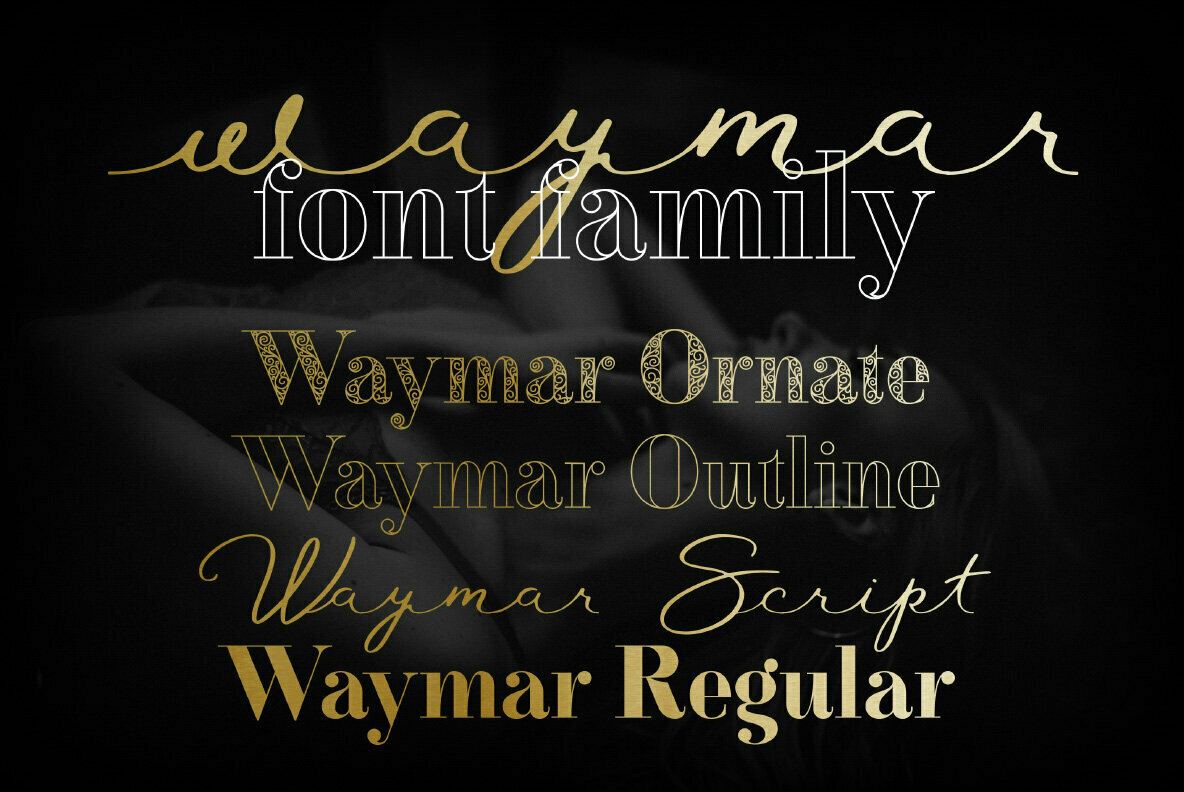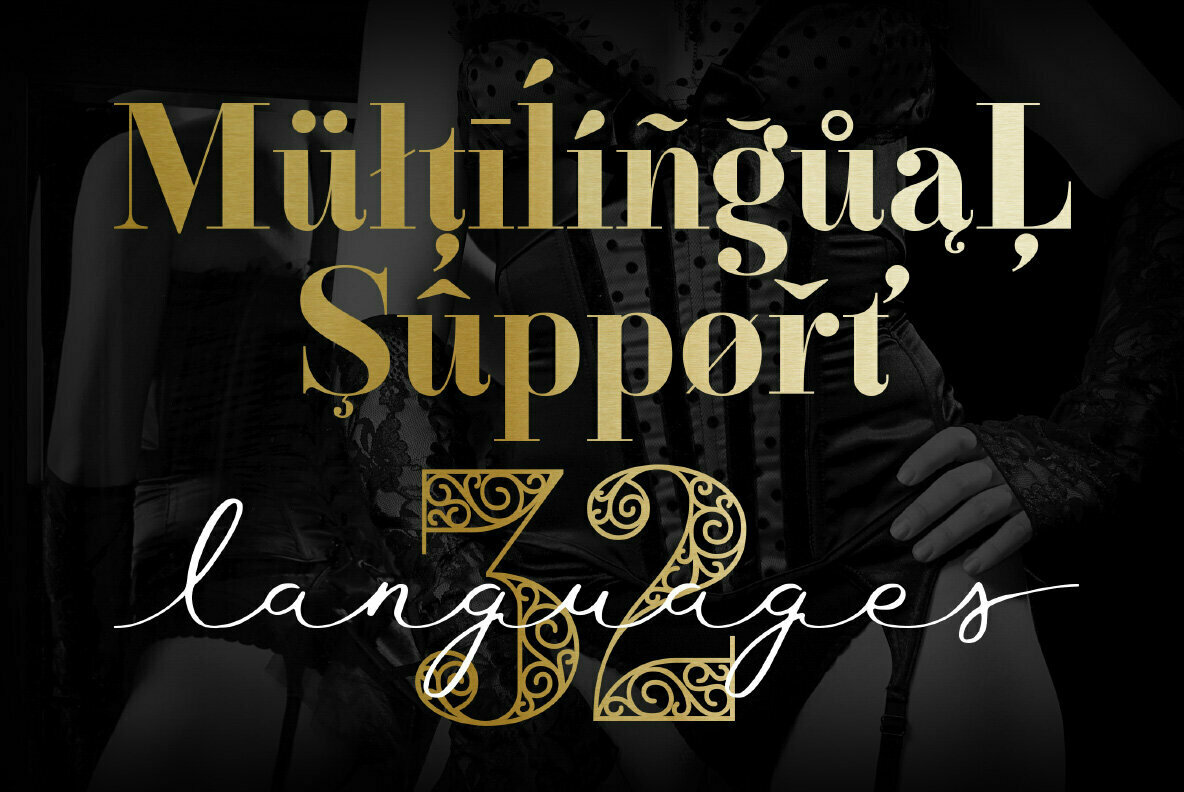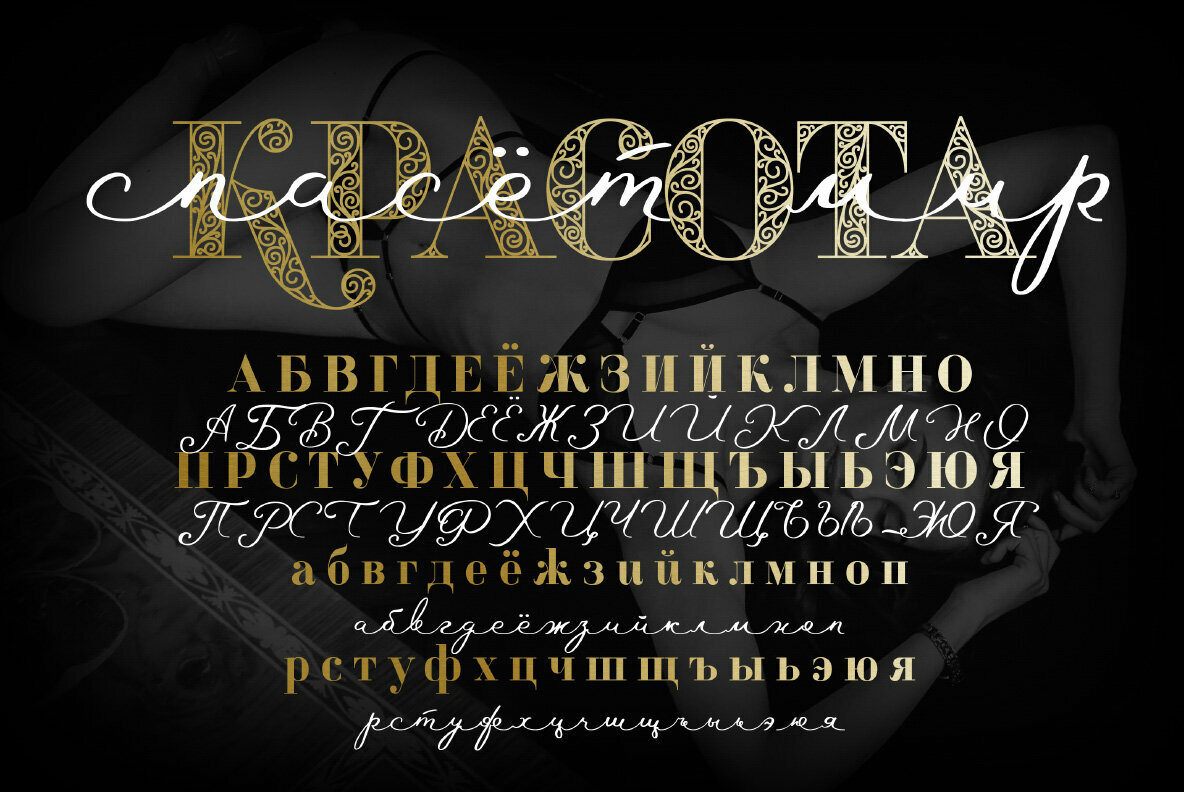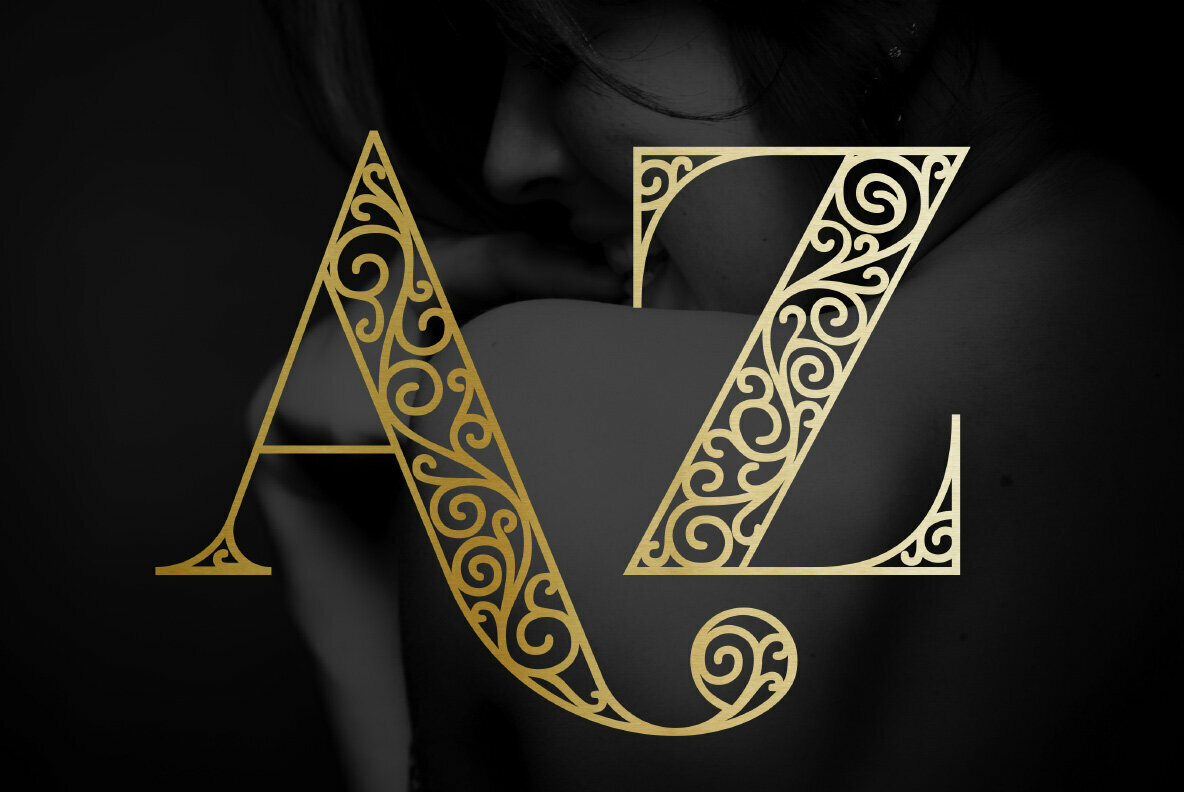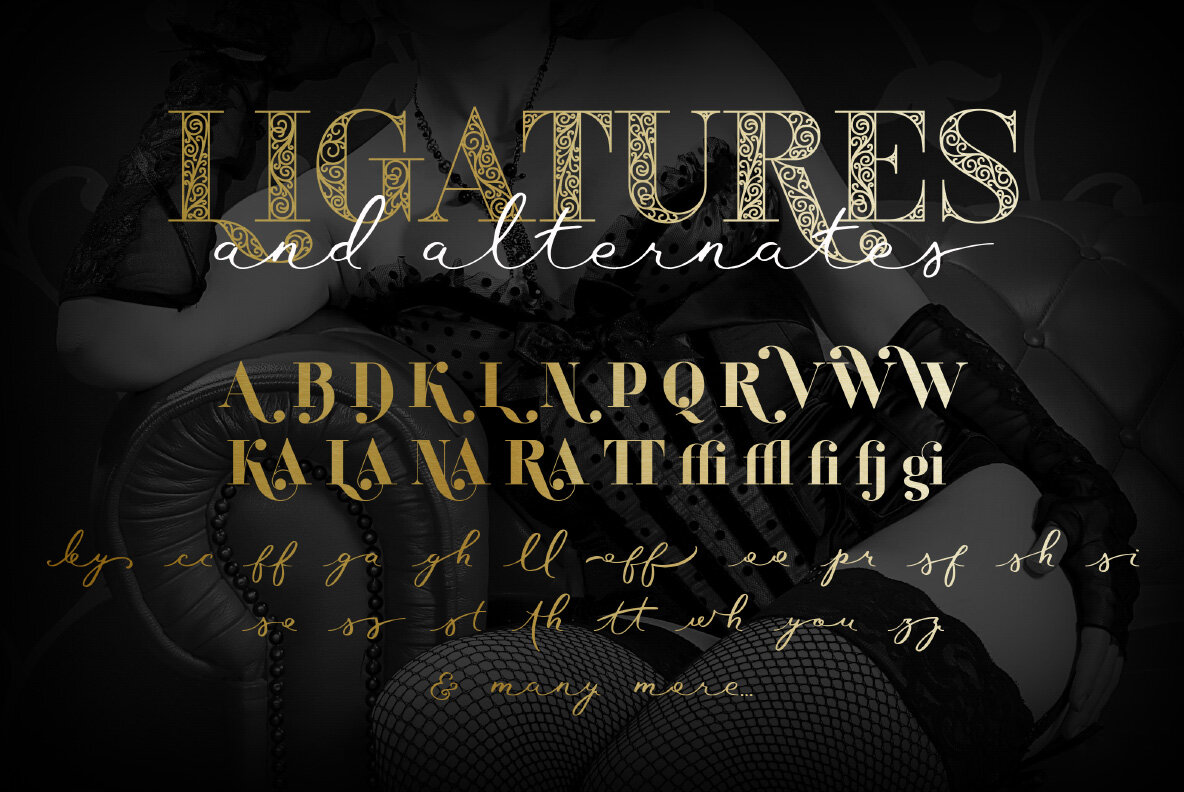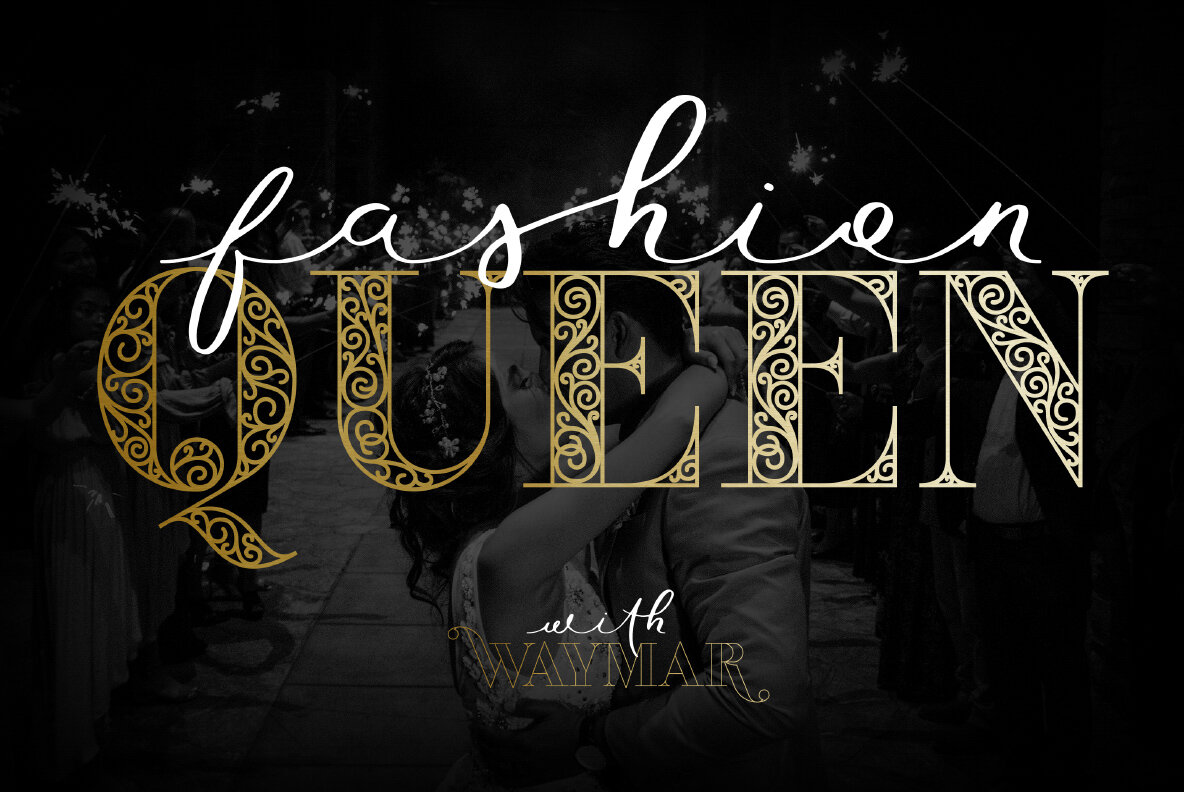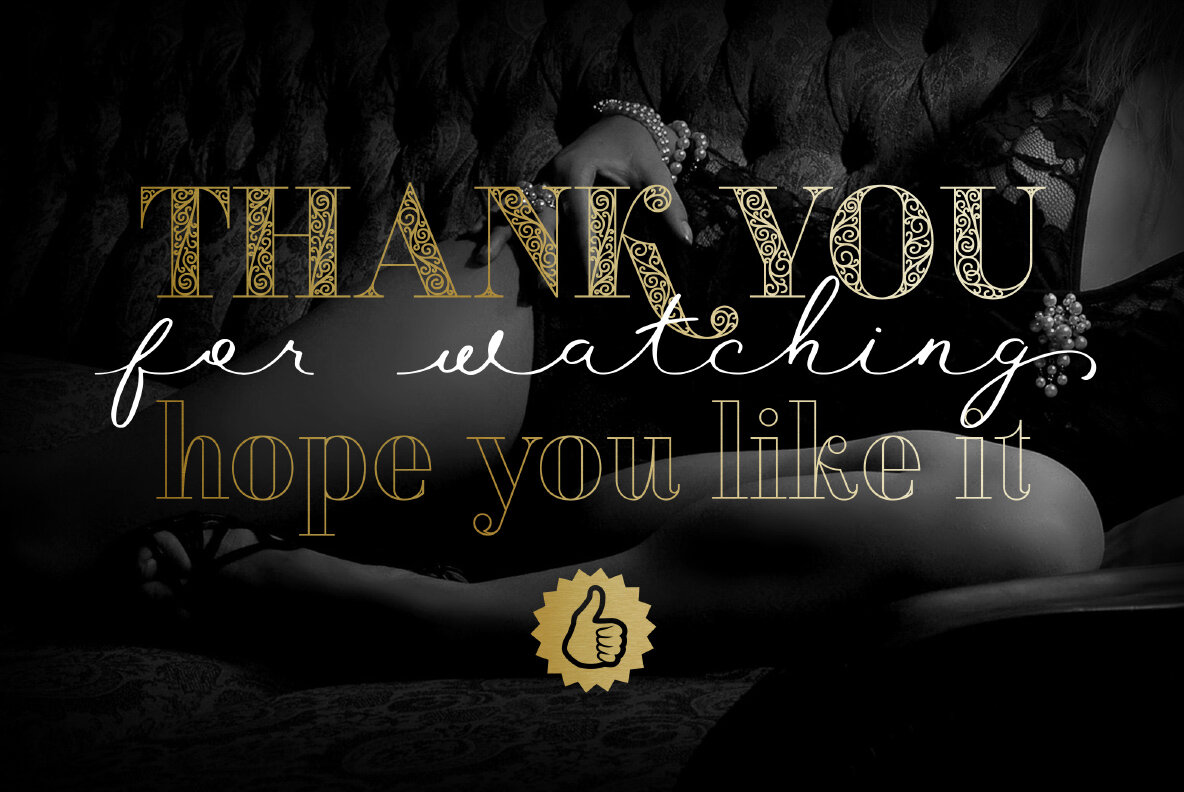
Waymar Font
Waymar Regular
Waymar Ornate
Waymar Outline
Waymar Script
Waymar font family is an modern elegant high-contrast serifs, inspired by the fashion glossy magazines typography and handwritten signature script. It perfectly represents modern & vintage esthetics.
Waymar fonts family is 4 styles:
- Waymar Ornate
- Waymar Outline
- Waymar Script
- Waymar Regular
All fonts includes multilingual support (32 languages: Afrikaans, Basque, Bosnian, Catalan, Croatian, Czech, Danish, Dutch, English, Estonian, Filipino, Finnish, French, Galician, German, Indonesian, Irish, Italian, Latvian, Lithuanian, Malay, Norwegian Bokmal, Portuguese, Romanian, Russian, Slovak, Slovenian, Spanish, Swahili, Swedish, Turkish, Zulu), alternate characters and beautiful ligatures.
The font is perfect for wedding elegant invitation cards, beauty and fashion package design.